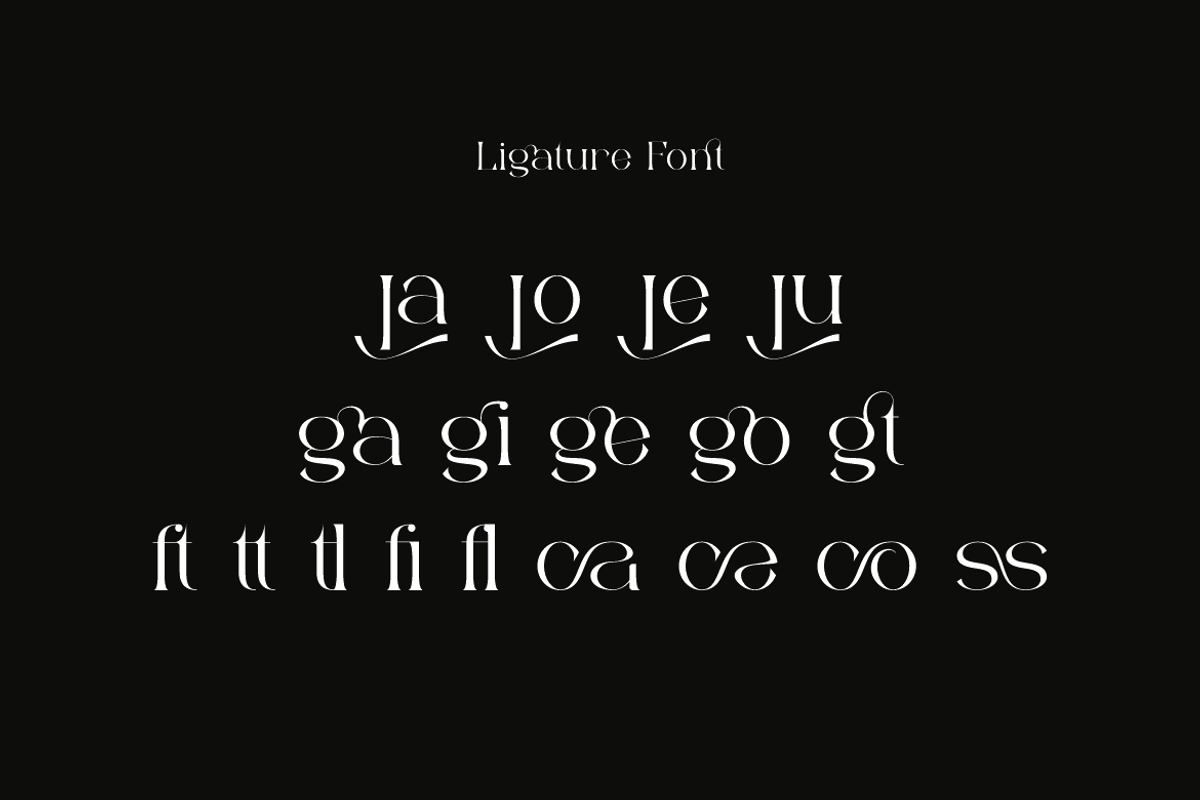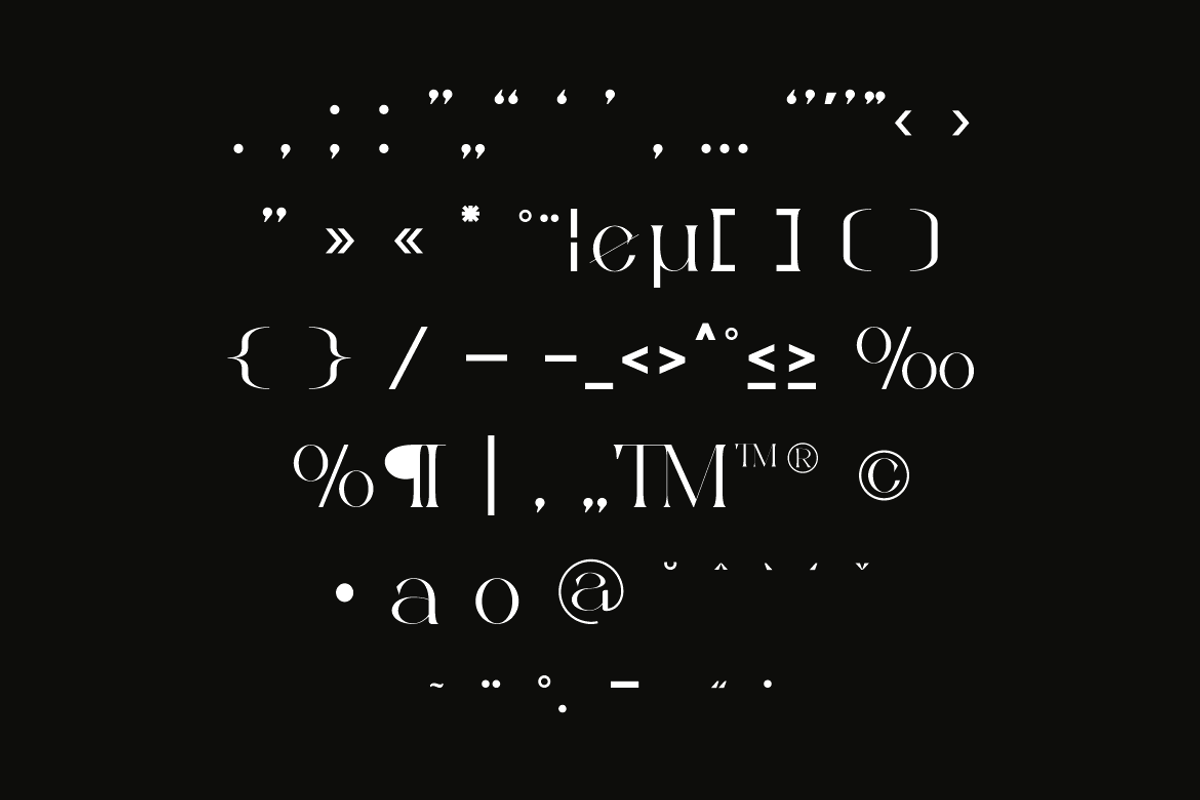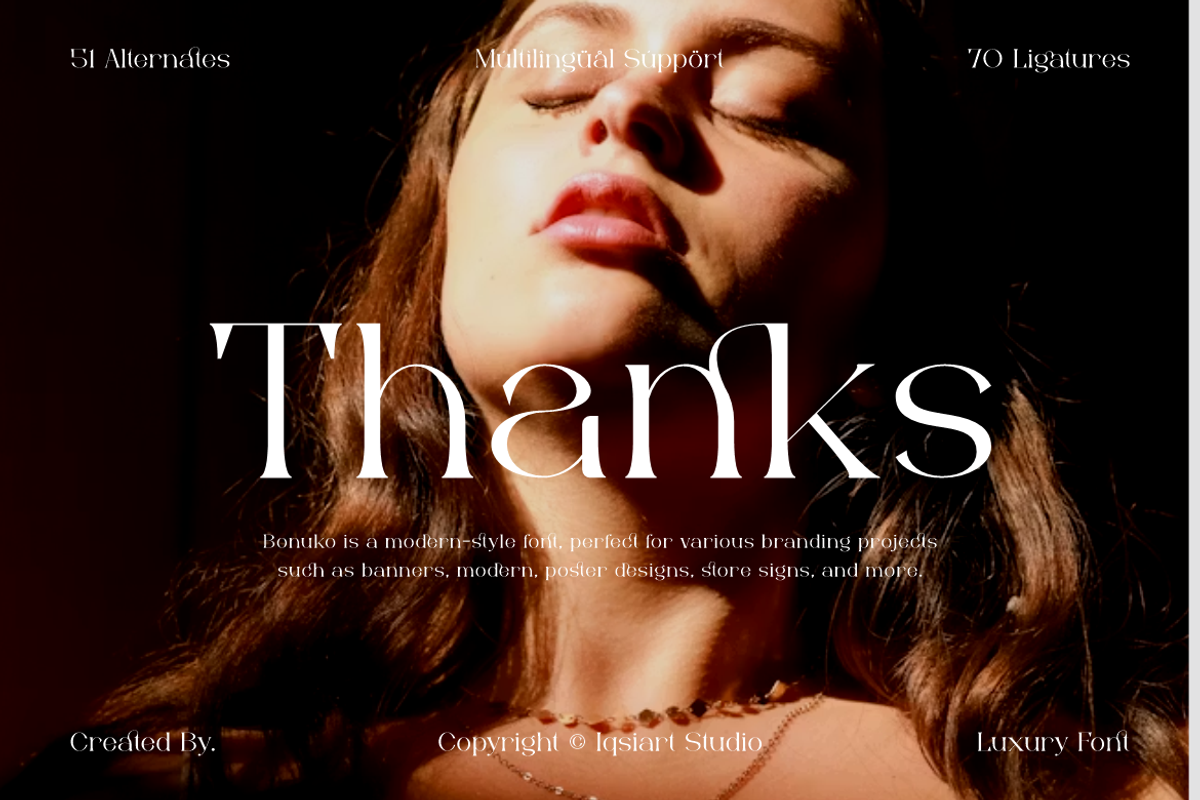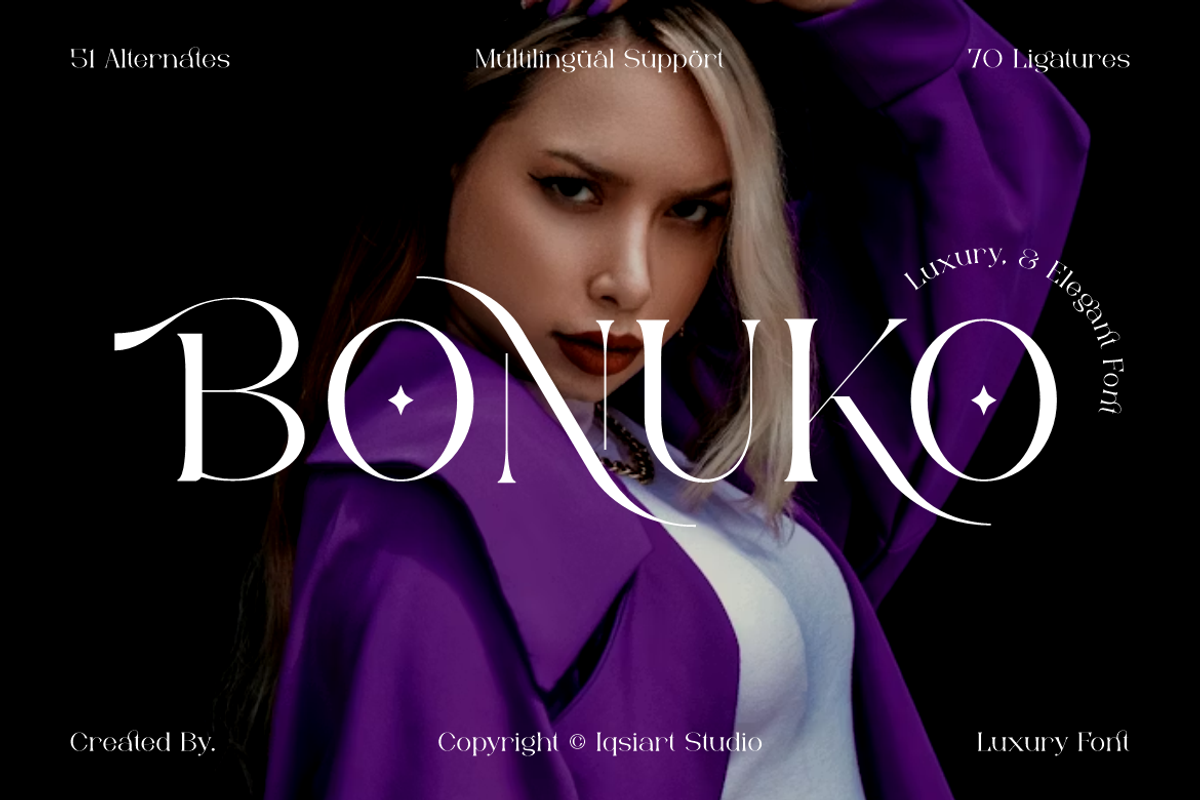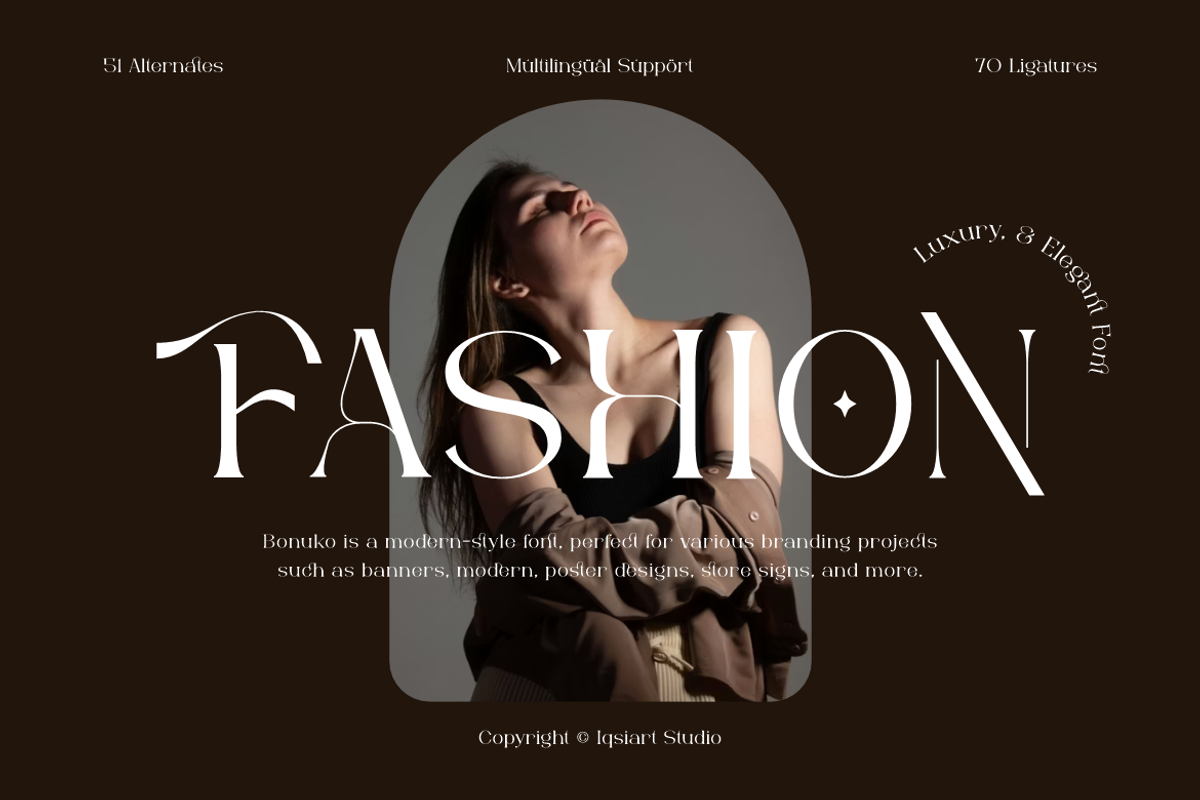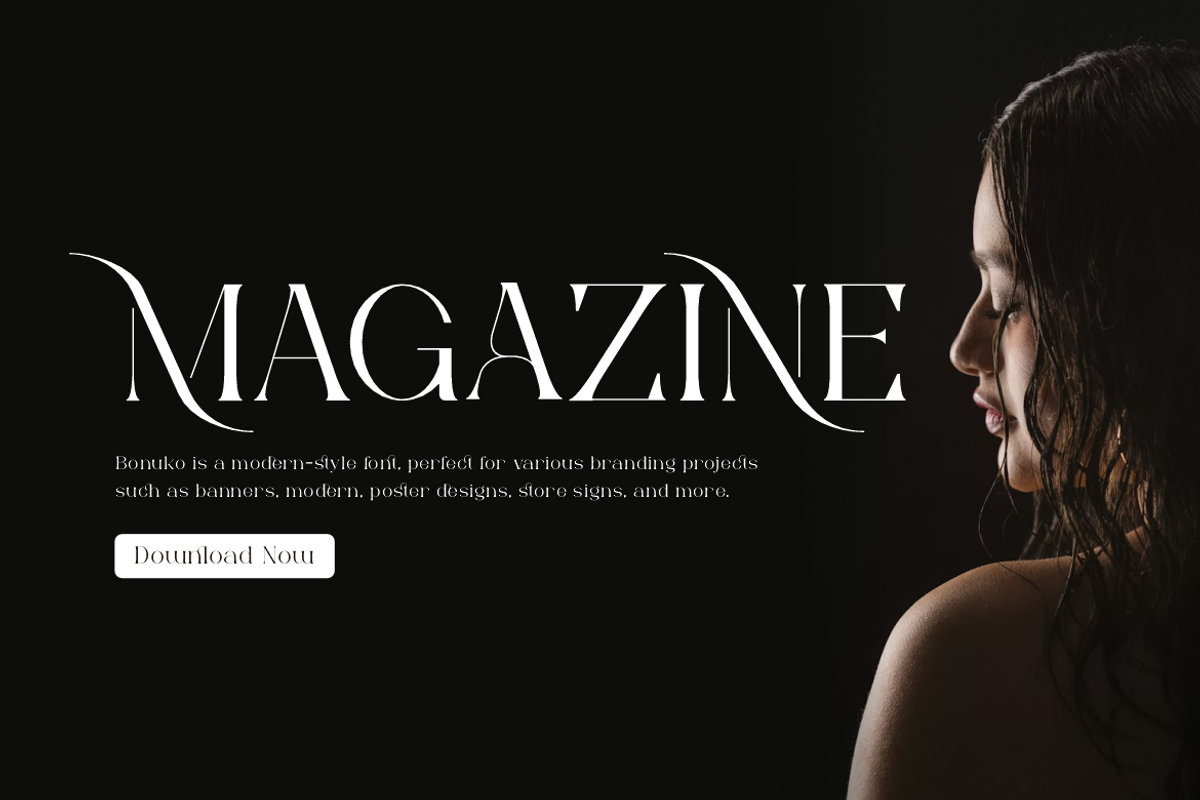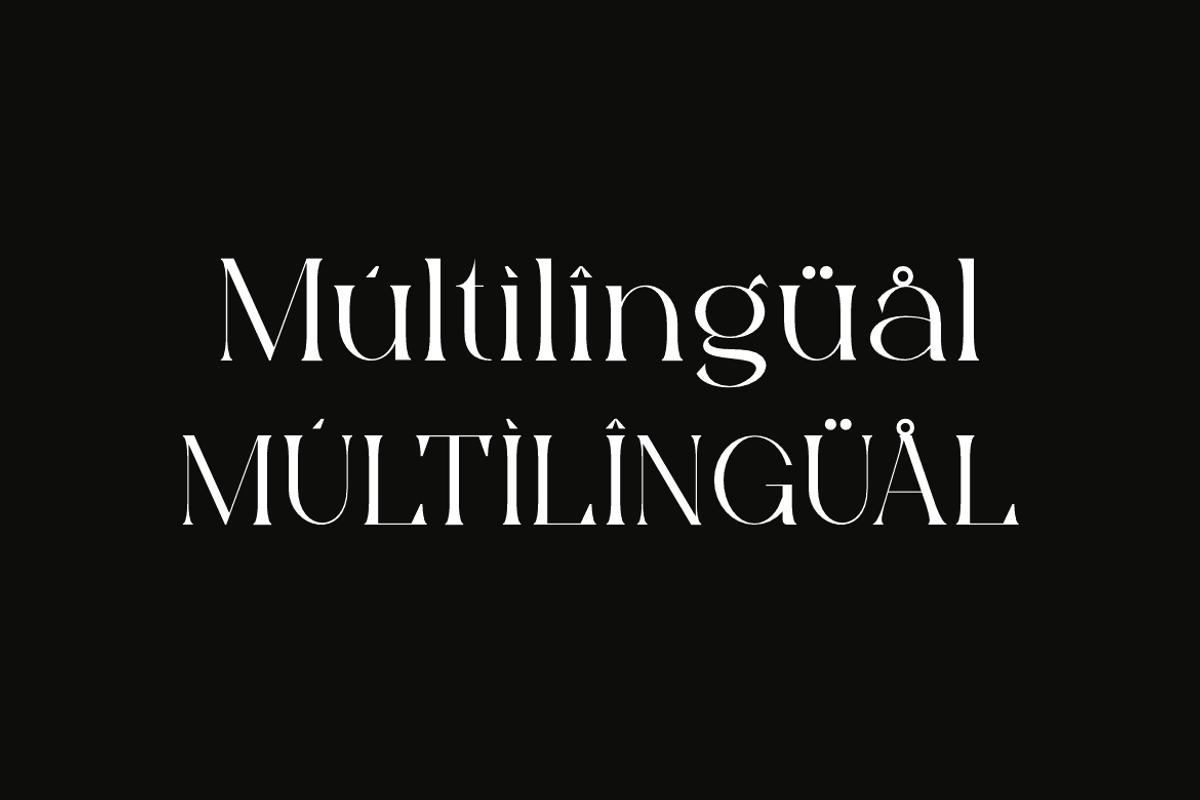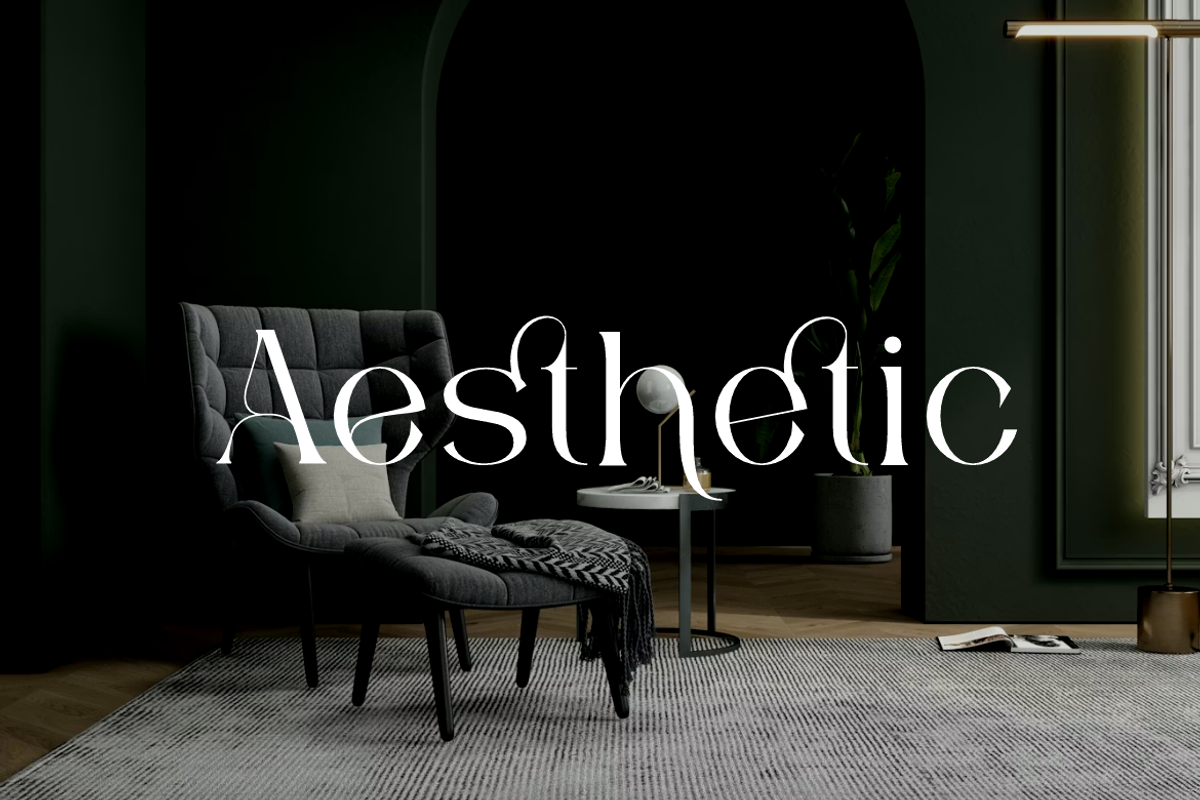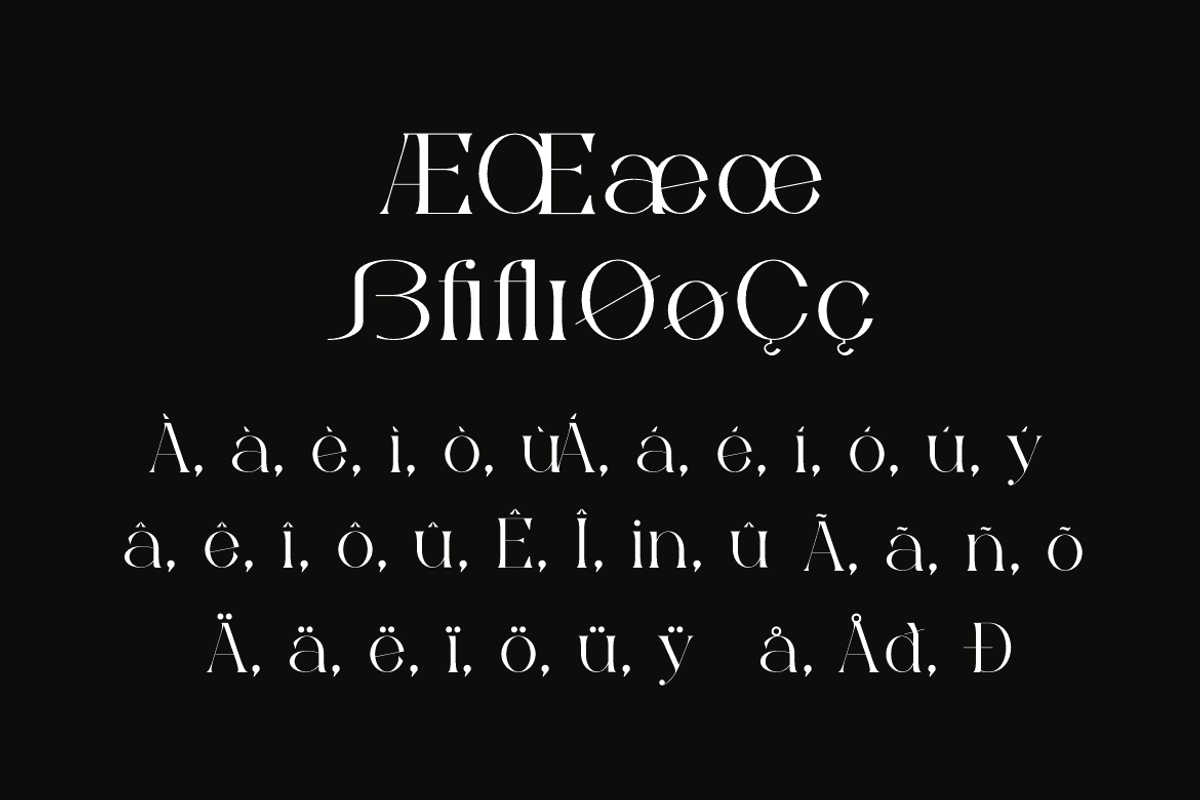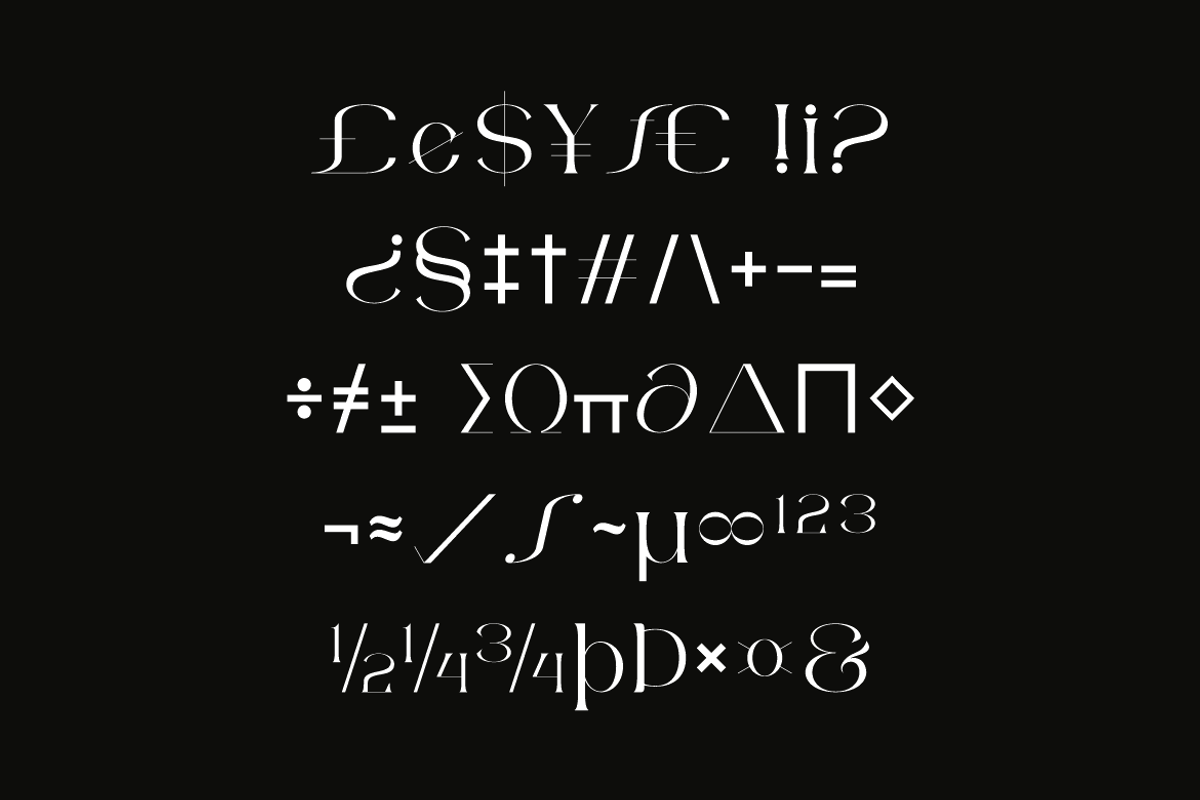
Bonuko - Modern Ligature Serif Font
Bonuko Font is a serif and authentic display typeface that suits a variety of design needs. We offer a wide range of themes and font styles — visit our profile to explore more and find the perfect style for your project.